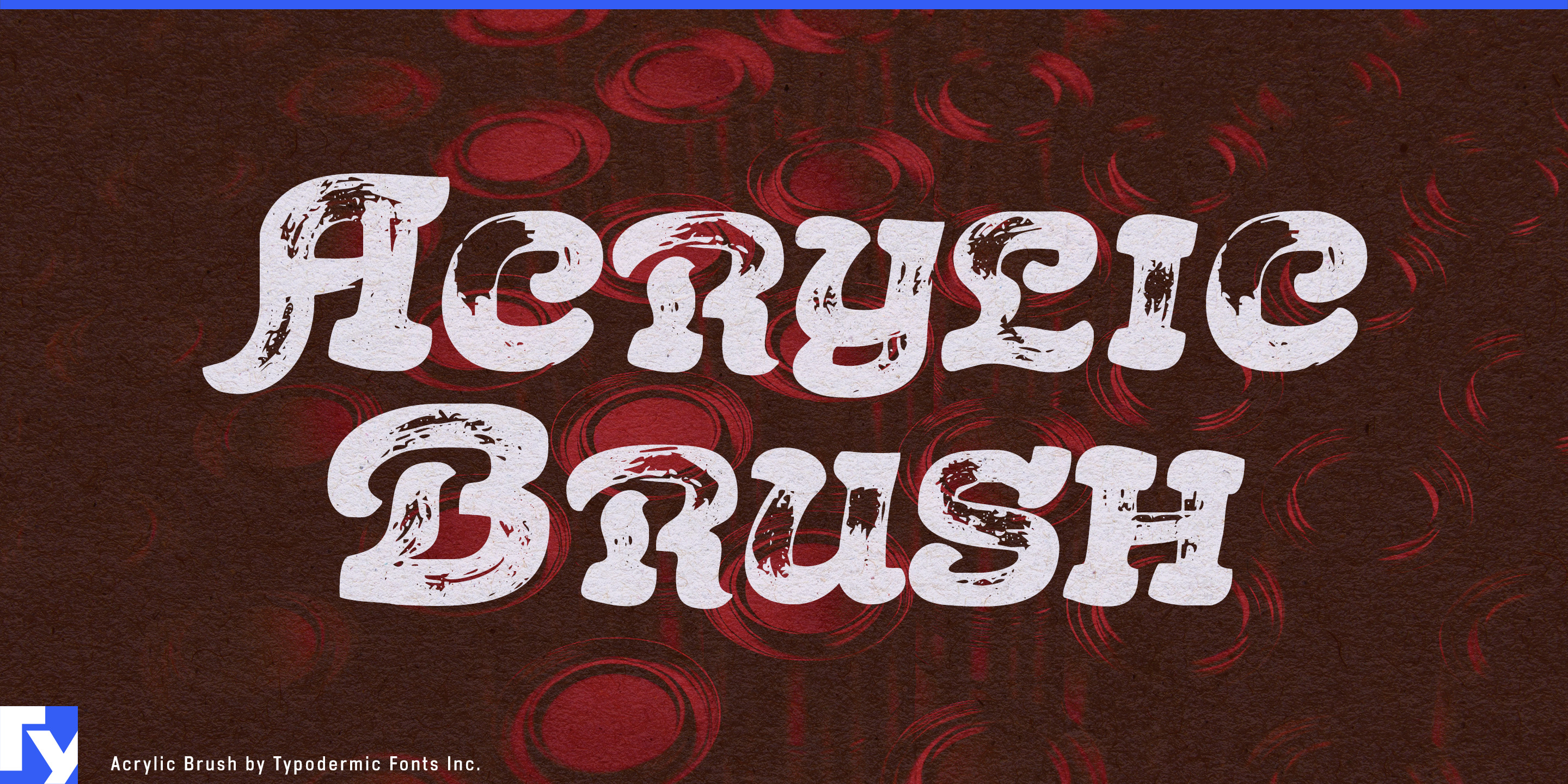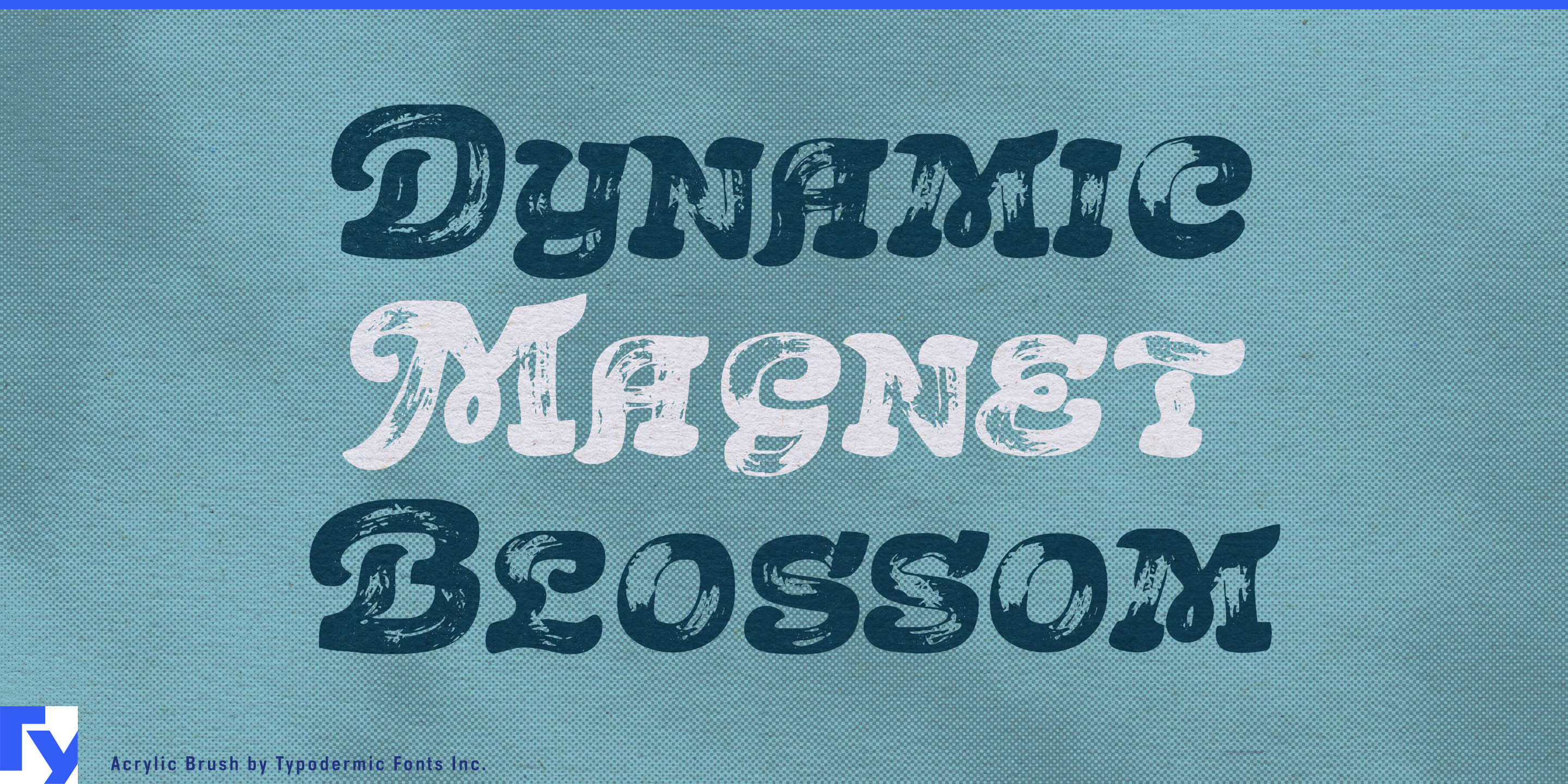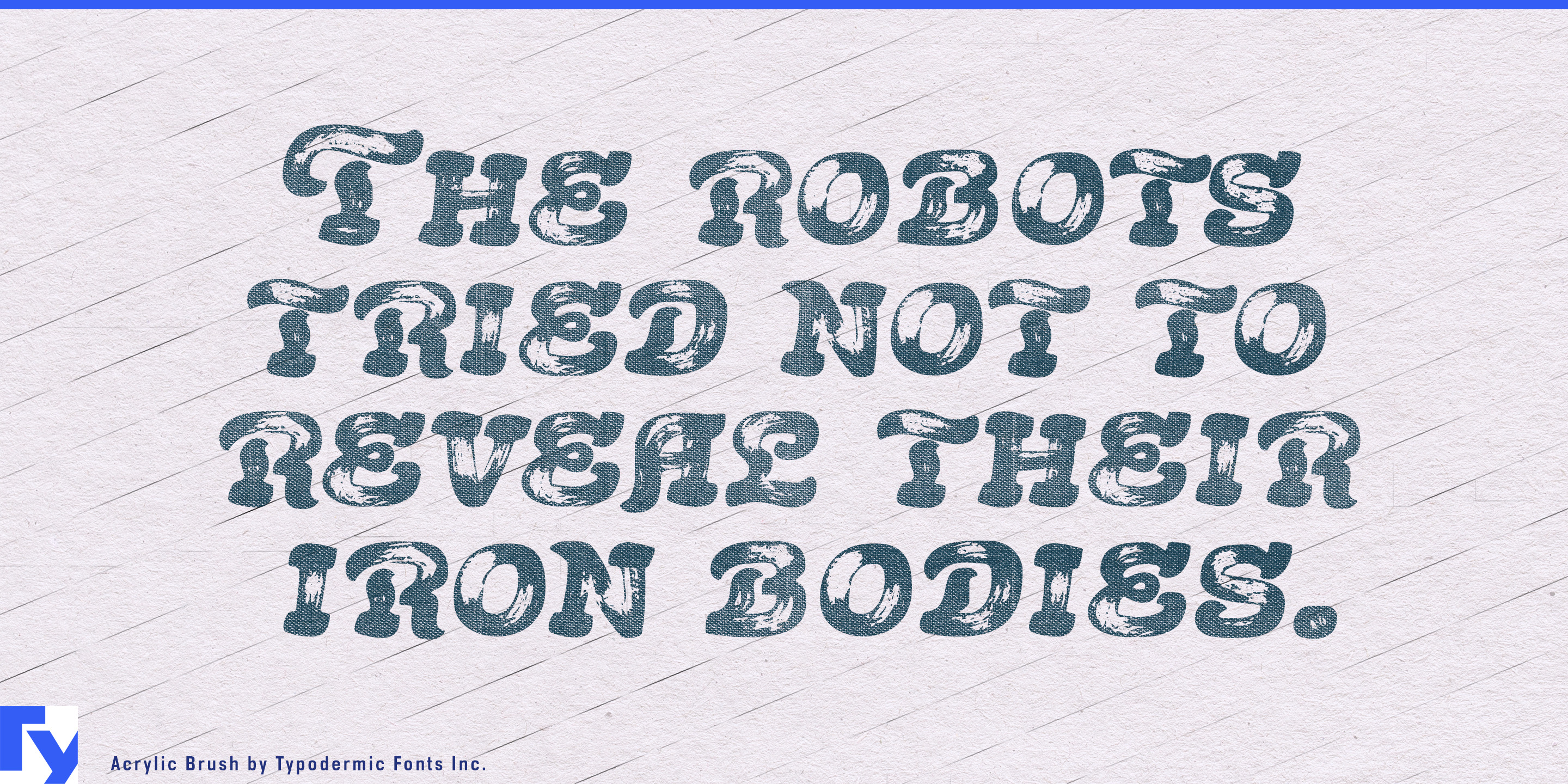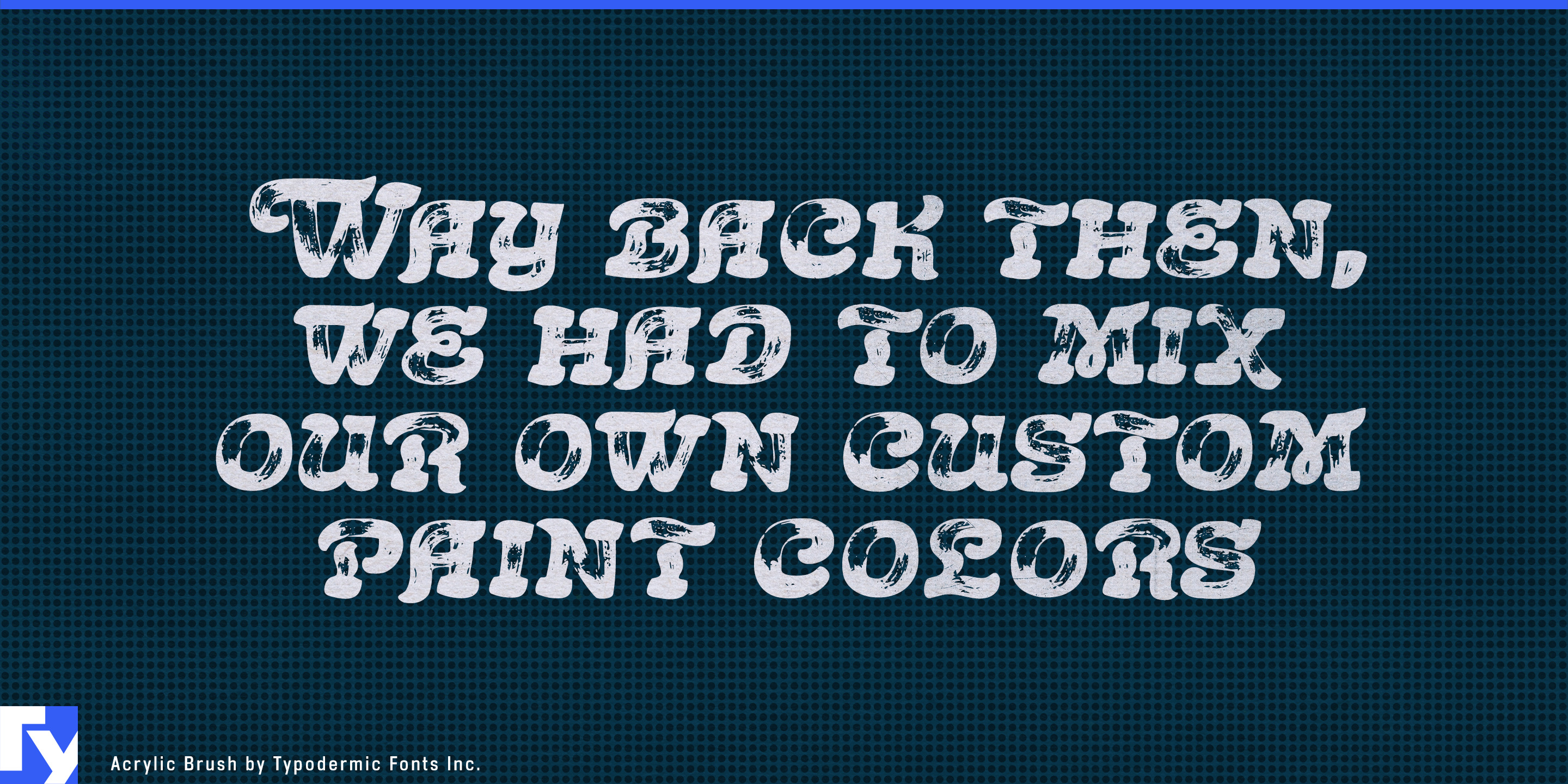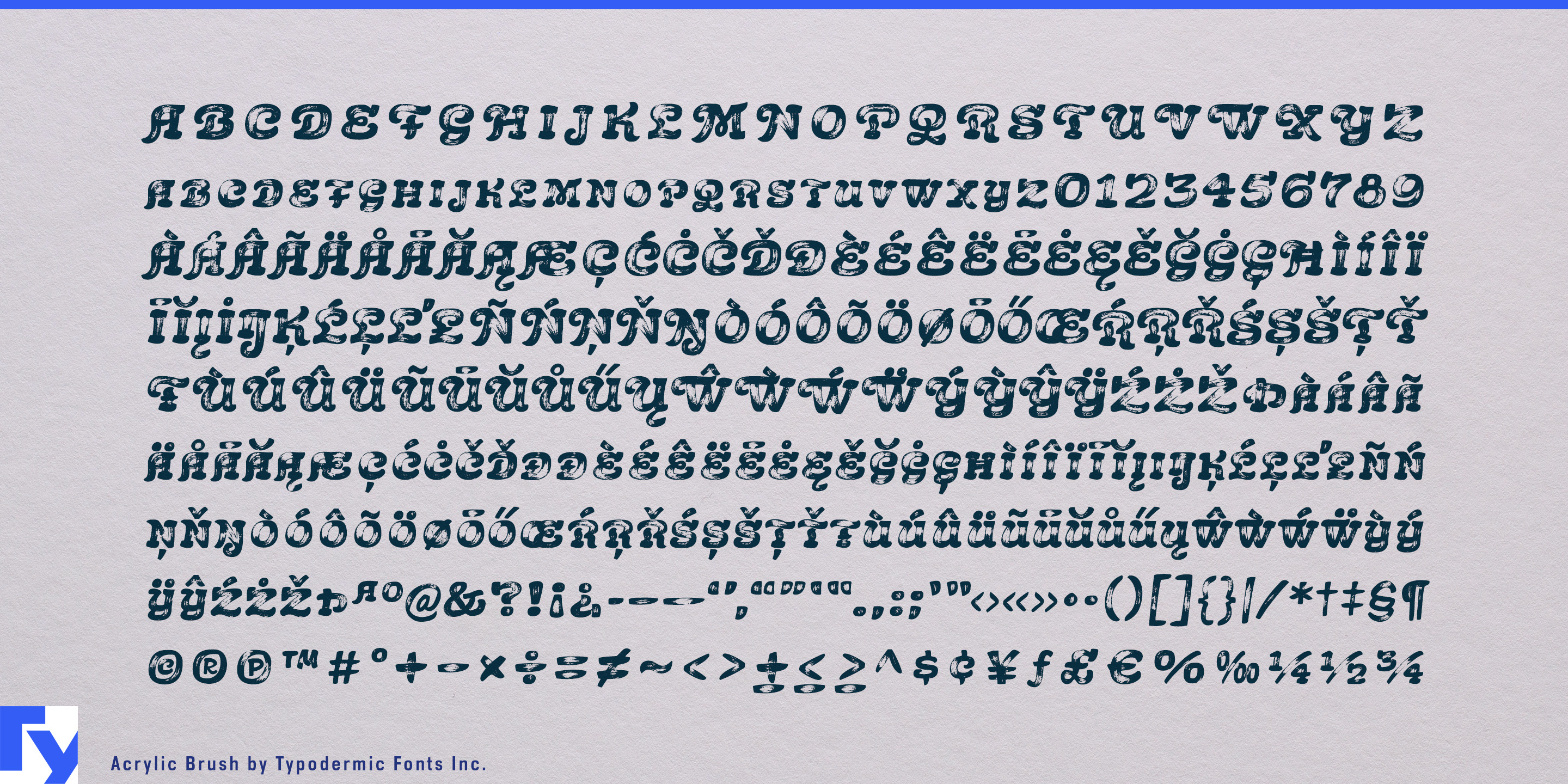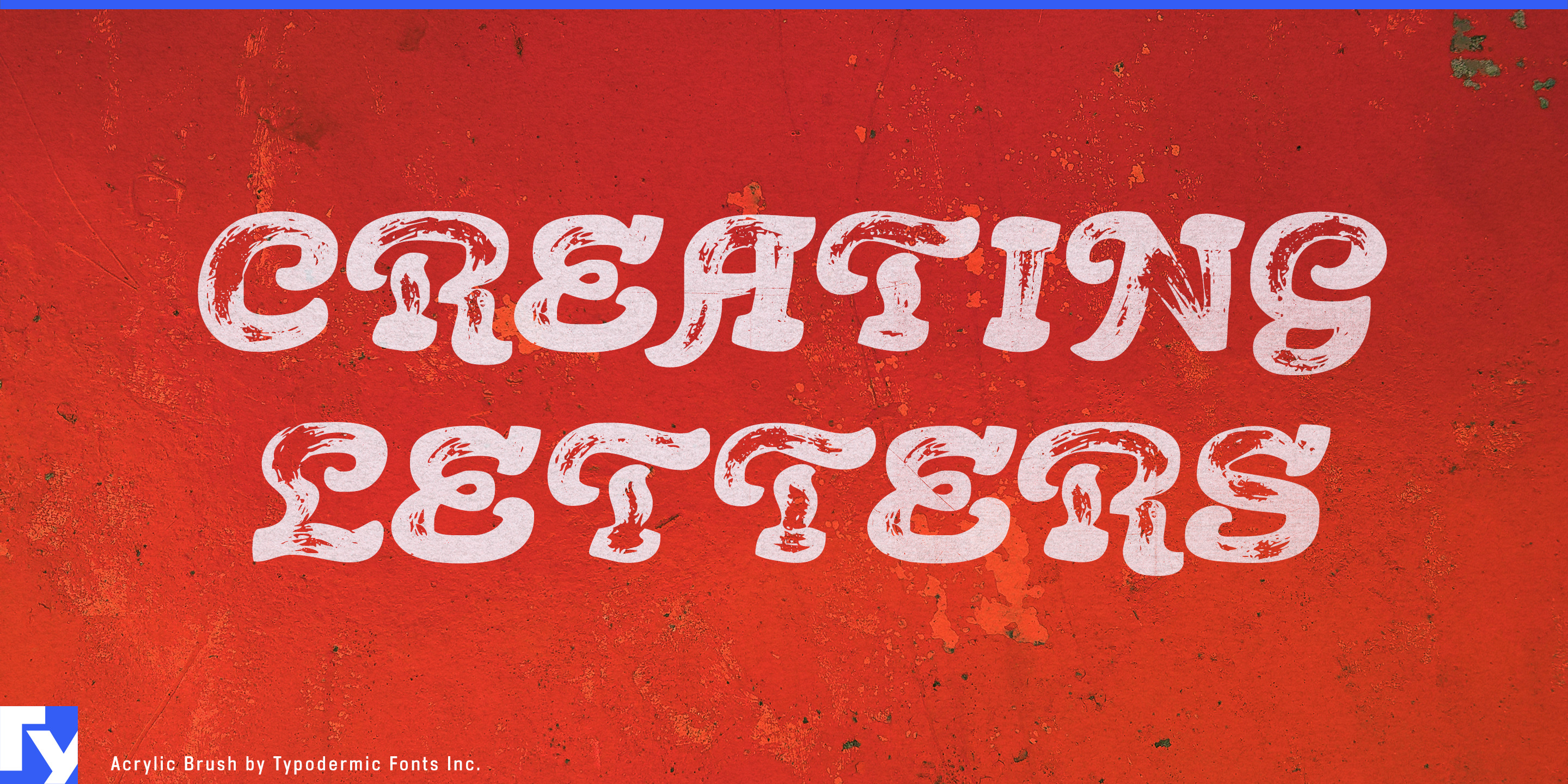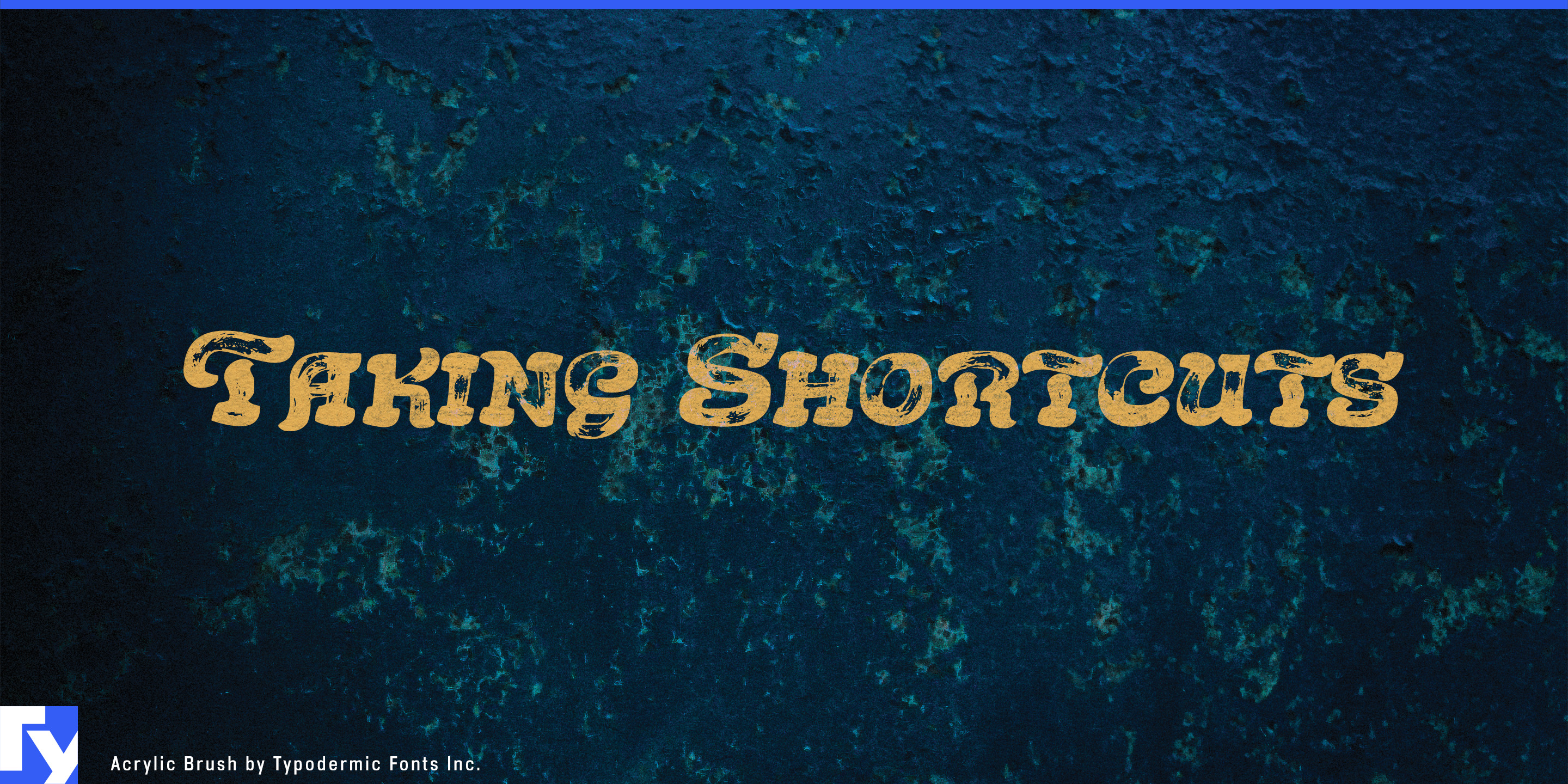
Acrylic Brush
Some brush fonts are built to flow. Acrylic Brush is built to stop the eye. Its irregular small-cap forms, abrupt changes of direction, and heavily painted construction make short words behave more like graphic objects than lines of handwriting. That makes it a difficult choice for long phrases, but a useful one when a product name, collection title, or campaign word needs to become part of the image.
The letters began as solid brush-painted shapes rather than as a polished sign-painting alphabet. Their awkward proportions and unusual joins remain visible beneath the worn surface, giving Acrylic Brush its personality before texture enters the picture. Alternate double-letter combinations help repeated forms avoid falling into an obvious digital pattern.
Art materials are one of its clearest applications. Acrylic paint ranges, paint-marker sets, screen-printing inks, printmaking supplies, and artist kits often need compact collection names that can appear across tubes, cartons, display cards, and promotion. A title such as Heavy Body, Neon Set, or Poster Black can function almost like a painted sample while another typeface handles the technical information.
The same approach suits artist-led products and entertainment where one strange title needs to carry much of the identity: skateboard deck series, designer toys, limited-edition collectibles, indie games, immersive attractions, oddities museums, and experimental exhibitions. Acrylic Brush can supply a recurring visual mark across packaging, merchandise, key art, signage, and campaign graphics without needing to become the entire typographic system.
Acrylic Brush is strongest when a few words are given enough space to be looked at as well as read. It is not a general-purpose brush script; it is a painted display tool for names and titles that need enough visual oddness to become part of the product itself.